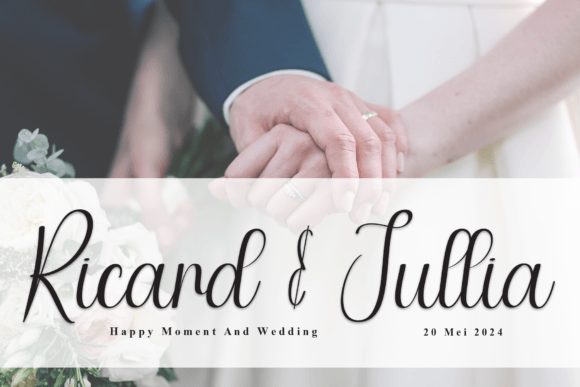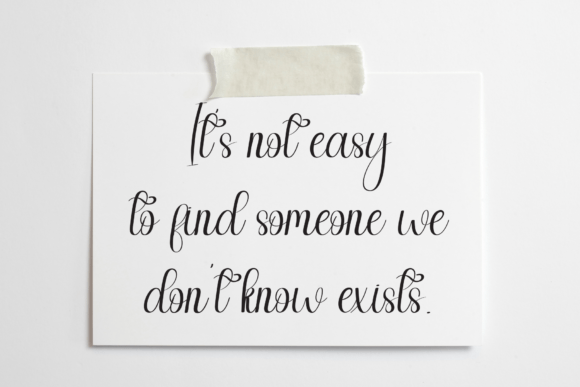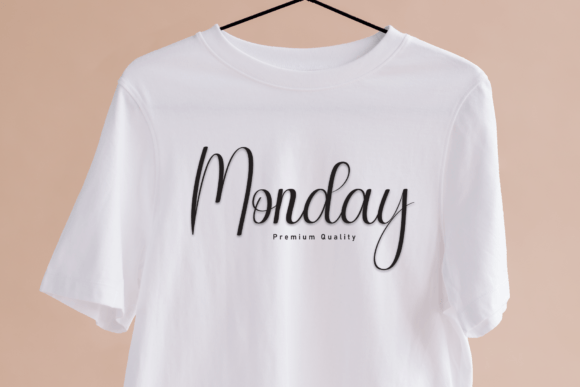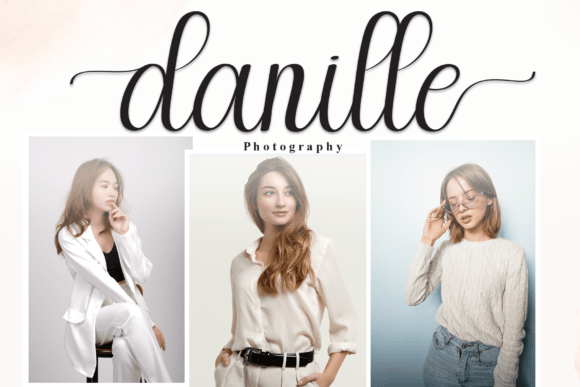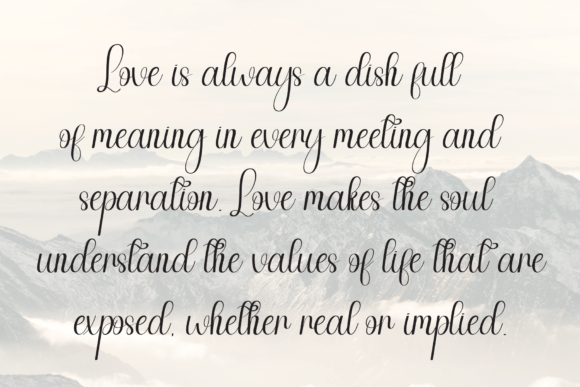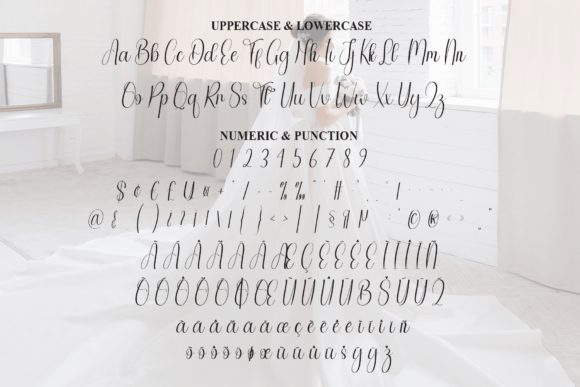
Bride Font: The Perfect Partner for Your Wedding and Greeting Card Designs
Welcome to a charming symphony of curves and strokes of the Bride font. This adorable creation brings to life every word with an appealing, jovial touch, making it the perfect partner for crafting wedding invitations or memorable greeting cards. Its enchanting quirkiness lends a spirited touch to your designs, infusing joy and enthusiasm into each letter.
The Charm of Bride Font
The Bride font is a delightful addition to the world of typography, offering a fresh and playful take on traditional fonts. Its unique blend of curves and strokes creates a captivating visual experience that is sure to leave a lasting impression. Whether you’re designing wedding invitations, greeting cards, or other creative projects, this font is sure to add a touch of whimsy and charm.
Perfect for Wedding Invitations
When it comes to wedding invitations, the Bride font is an ideal choice. Its elegant yet playful design perfectly captures the joy and excitement of the special day. The font’s charming curves and strokes evoke a sense of romance and sophistication, making it perfect for formal and informal wedding invitations alike.
Imagine setting the tone for your wedding celebration with a beautifully designed invitation featuring the Bride font. The font’s delightful appearance will surely get your guests excited for the big day and create a lasting impression.
Adding a Personal Touch to Greeting Cards
The Bride font is not just limited to wedding invitations. Its versatility makes it an excellent choice for designing memorable greeting cards for various occasions. Whether it’s a birthday, anniversary, or holiday, this font adds a personal touch to your cards, making them truly special.
With the Bride font, you can create greeting cards that are not only visually appealing but also convey the emotions and sentiments of the occasion. The font’s playful design injects a sense of fun and enthusiasm into your cards, making them a cherished keepsake for years to come.
Enchanting Quirkiness
One of the standout features of the Bride font is its enchanting quirkiness. The font’s unique design elements, such as its irregular curves and strokes, give it a distinctive character that sets it apart from other fonts. This quirkiness adds a spirited touch to your designs, infusing them with joy and enthusiasm.
The Bride font’s quirkiness also makes it an excellent choice for designers and crafters looking to add a personal touch to their work. With this font, you can create designs that are truly one-of-a-kind and reflect your individual style.
Tips for Using the Bride Font
To get the most out of the Bride font, here are some tips to keep in mind:
- Use the font in large sizes to make the most of its playful design elements.
- Pair the font with other fonts to create a unique and visually appealing contrast.
- Don’t be afraid to get creative and try out new and innovative design ideas.
In conclusion, the Bride font is a charming and versatile font that is perfect for designers and crafters looking to add a touch of whimsy and charm to their work. Its unique blend of curves and strokes creates a captivating visual experience that is sure to leave a lasting impression.
Whether you’re designing wedding invitations, greeting cards, or other creative projects, the Bride font is an excellent choice. Its enchanting quirkiness and playful design make it an ideal partner for crafting memorable and special designs.